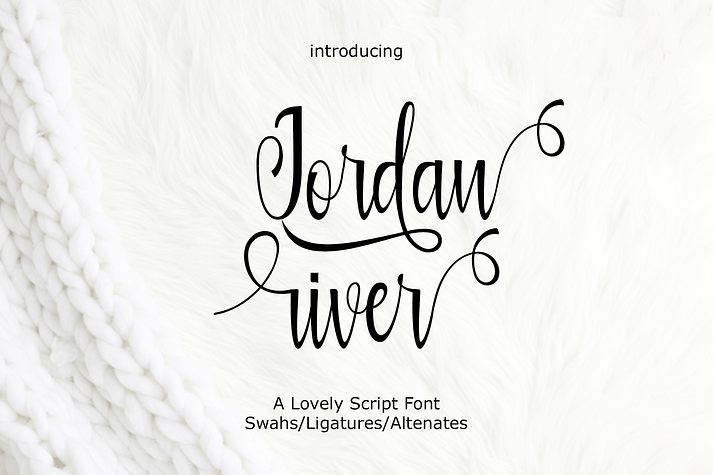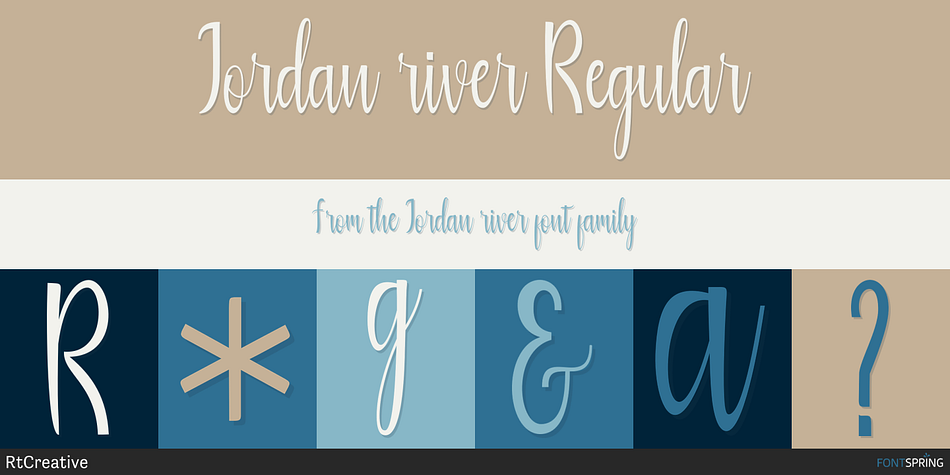
Jordan river Regular
Jordan river is a font family published by RtCreative.
Jordan river Modern Calligraphy. This font was designed by handwriting, and it has a modern and unique forms of calligraphy, the writing style is very natural.
The Features of this fonts is;
• Standart ligatures
• Stylistic Alternates
• Contextual Alternates
• Stylistic sets
• Swahs